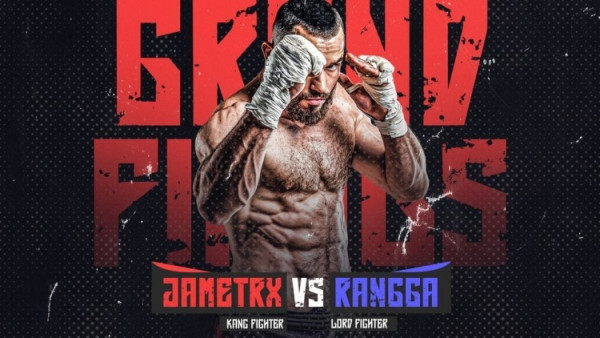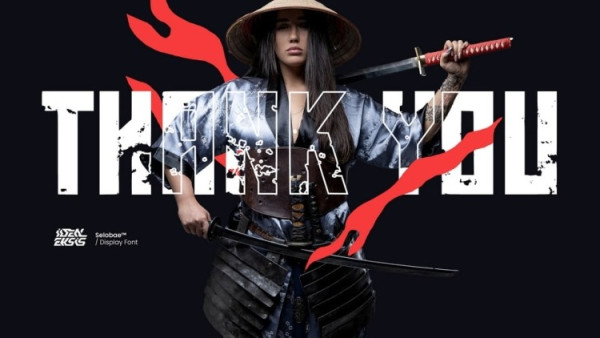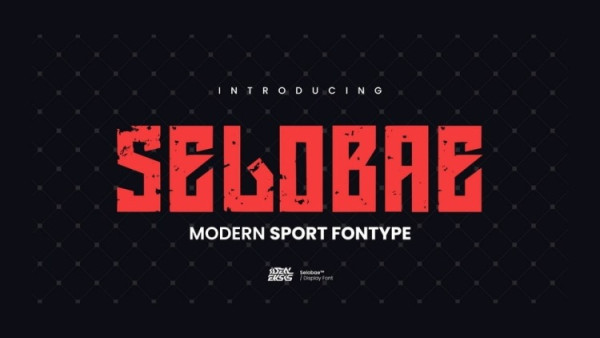
Selobae Futuristic Font
Selobae Futuristic Font, by Ideal eksis is a bold and dynamic sport font that packs a punch with its blocky and sharp letterforms. This powerful typeface is designed to exude a sense of strength, speed, and competitive spirit, making it the ultimate choice for athletic and sports-related designs.
With Selobae font, your designs will radiate with energy and intensity. Whether you’re creating team logos, sports event posters, or athletic apparel, this font will infuse your text with a winning spirit that’s hard to ignore.